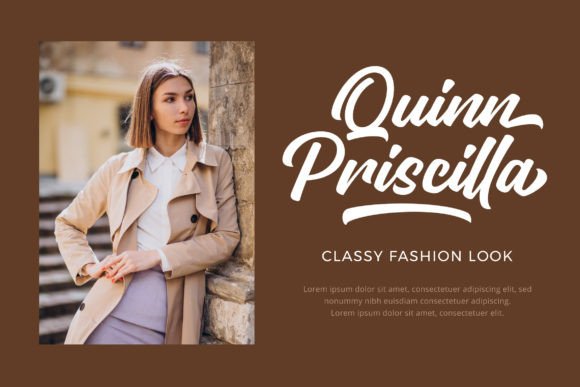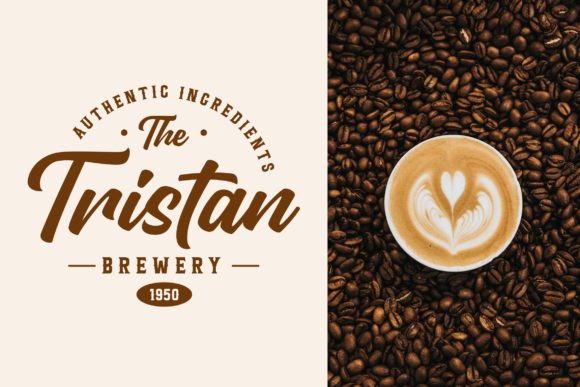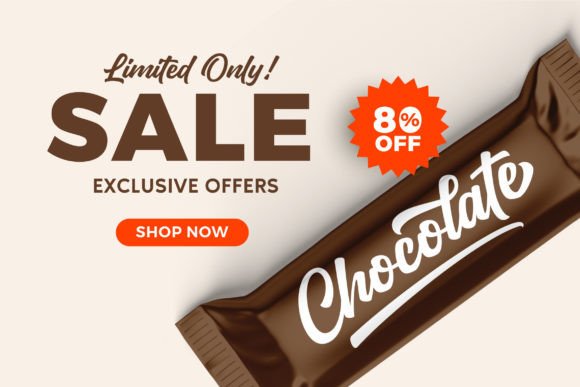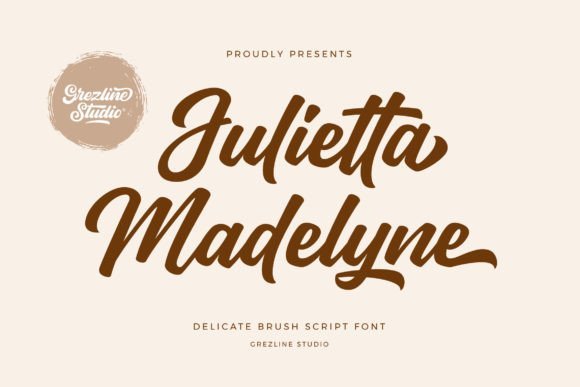
Introduction to Julietta Madelyne Font
Julietta Madelyne is a delicate brush script font.
You can use this font in a wide range of projects such as logos, covers, posters, quotes, product packaging, merchandise, social media, and much more This font is already PUA encoded so you can access the alternate glyph very easily.
Julietta Madelyne Font offers exceptional quality and versatility, making it a valuable addition to your design toolkit. Whether you’re creating for personal projects or commercial use, Julietta Madelyne Font delivers professional results.